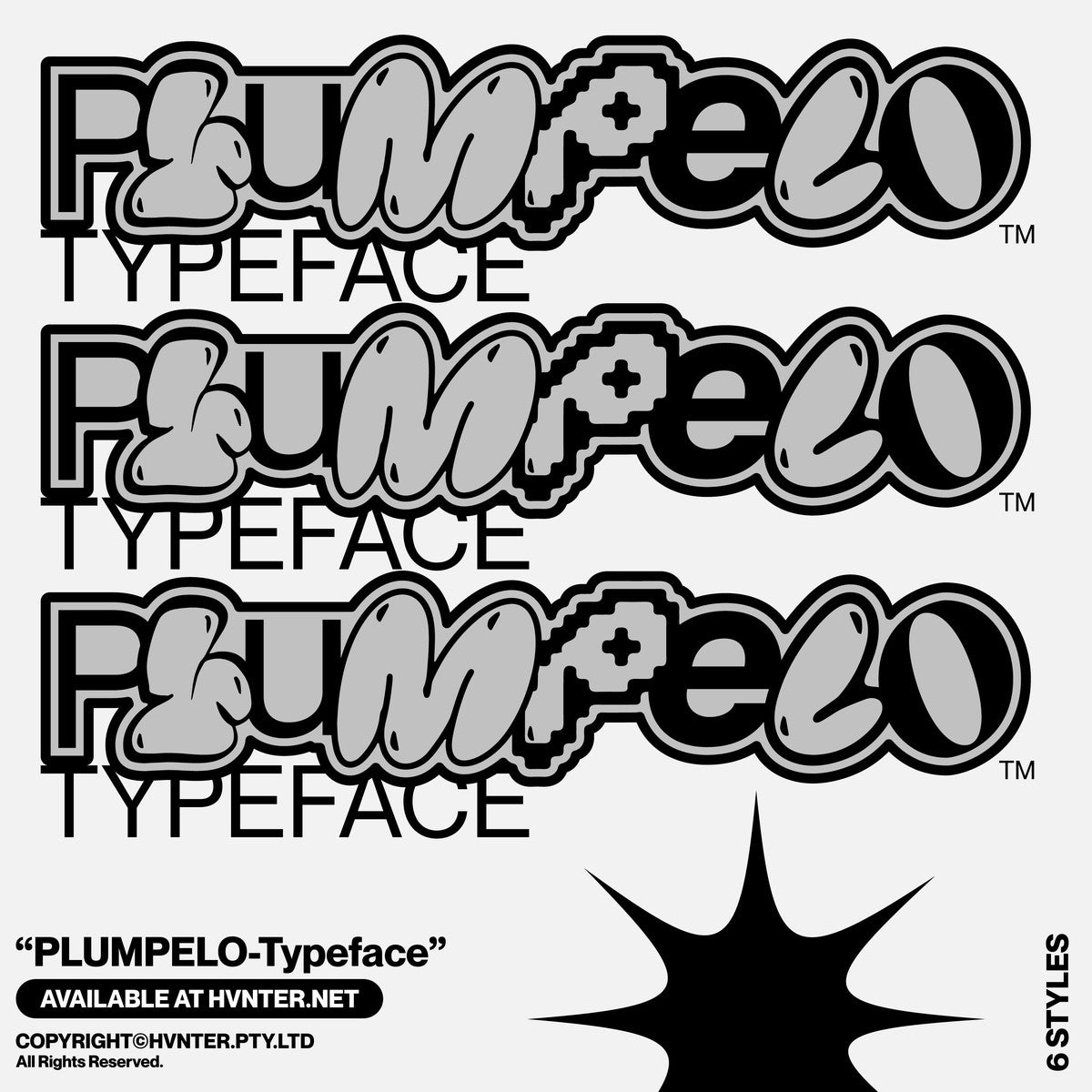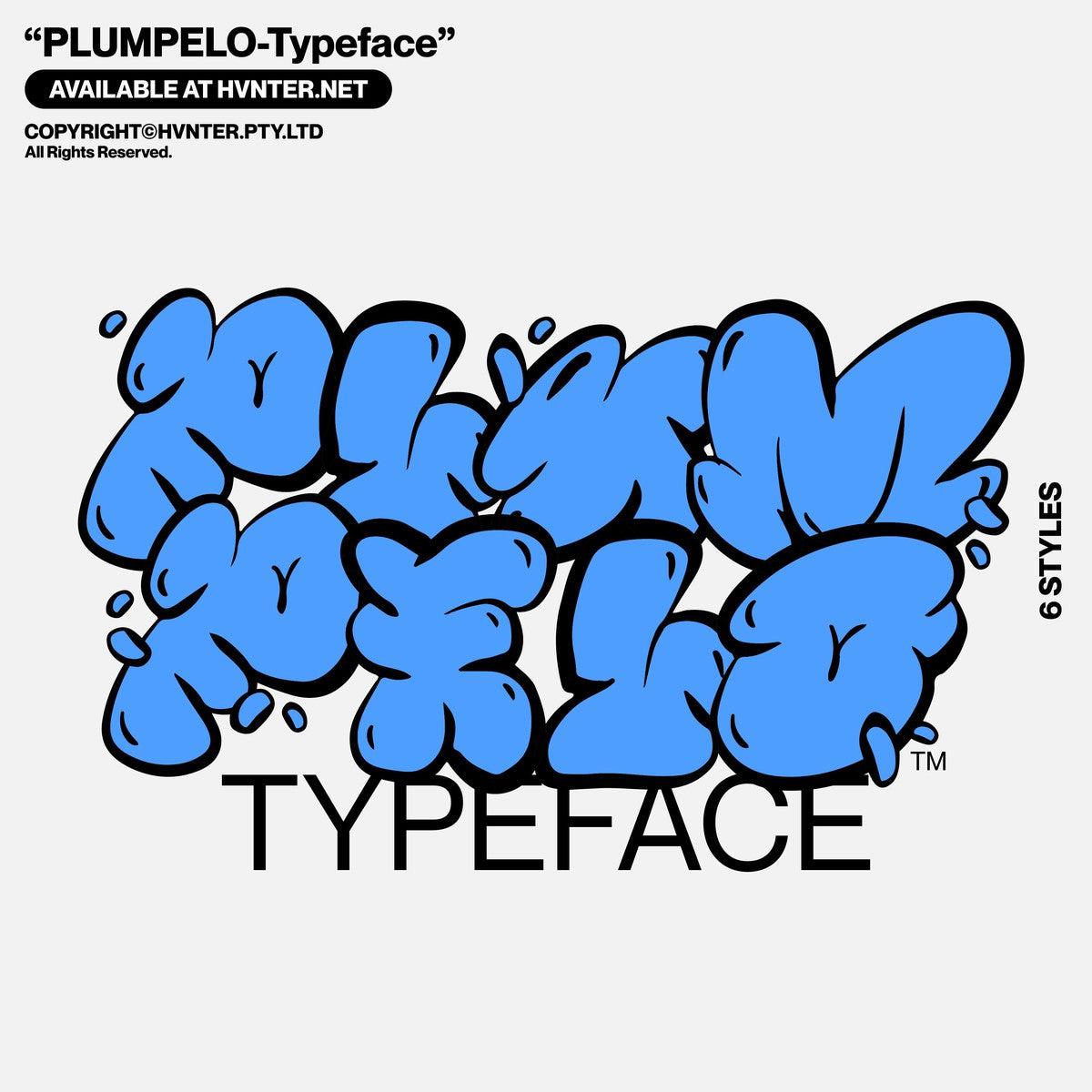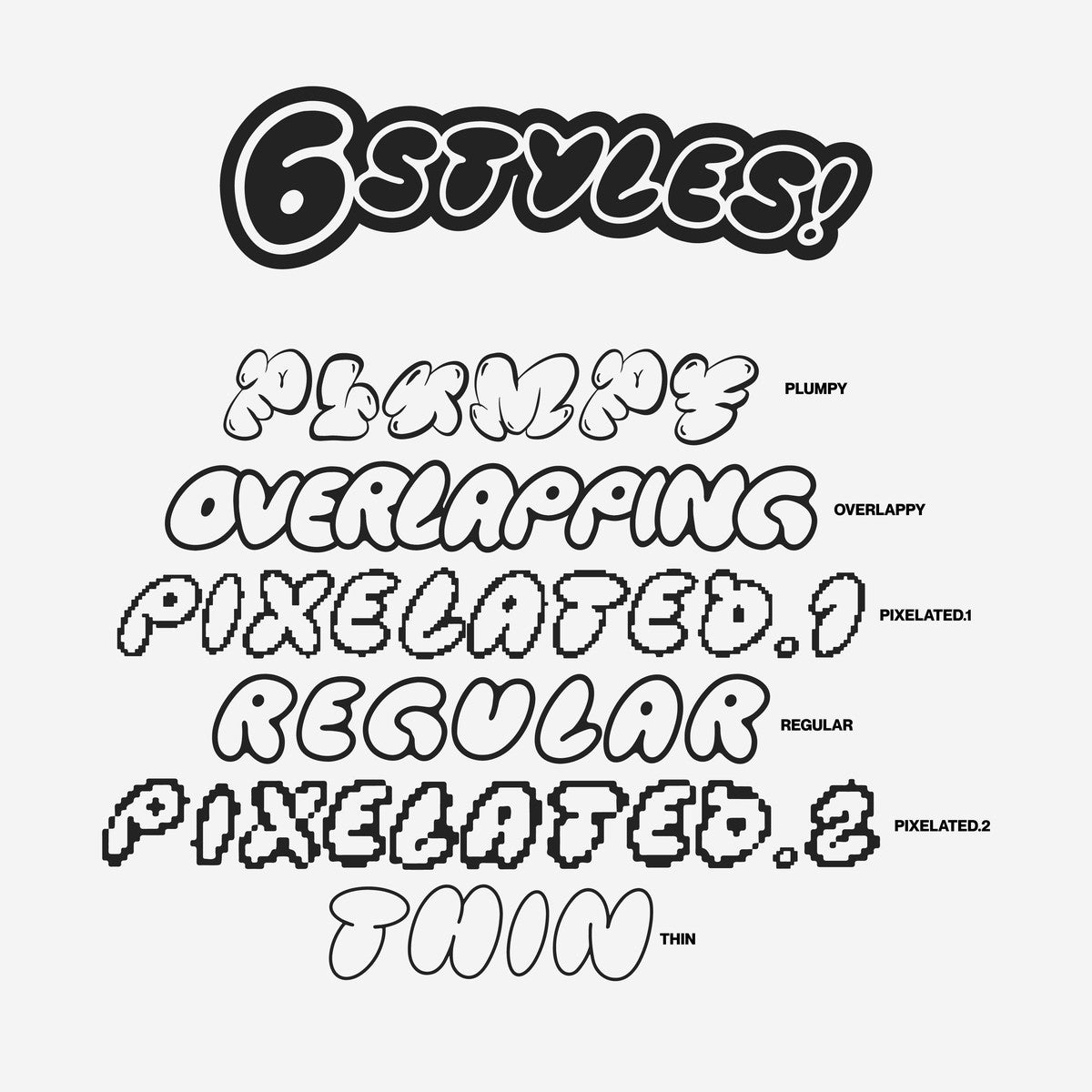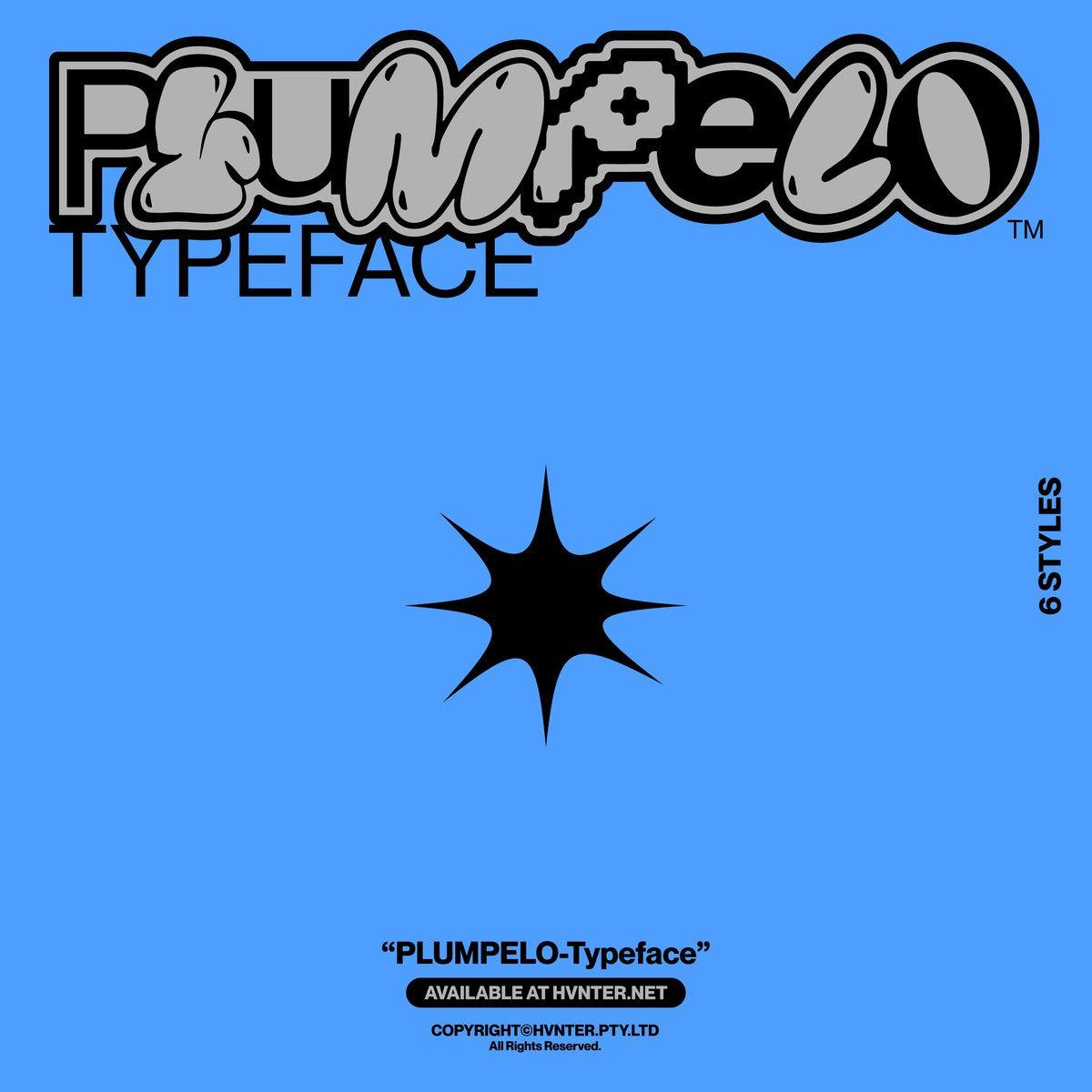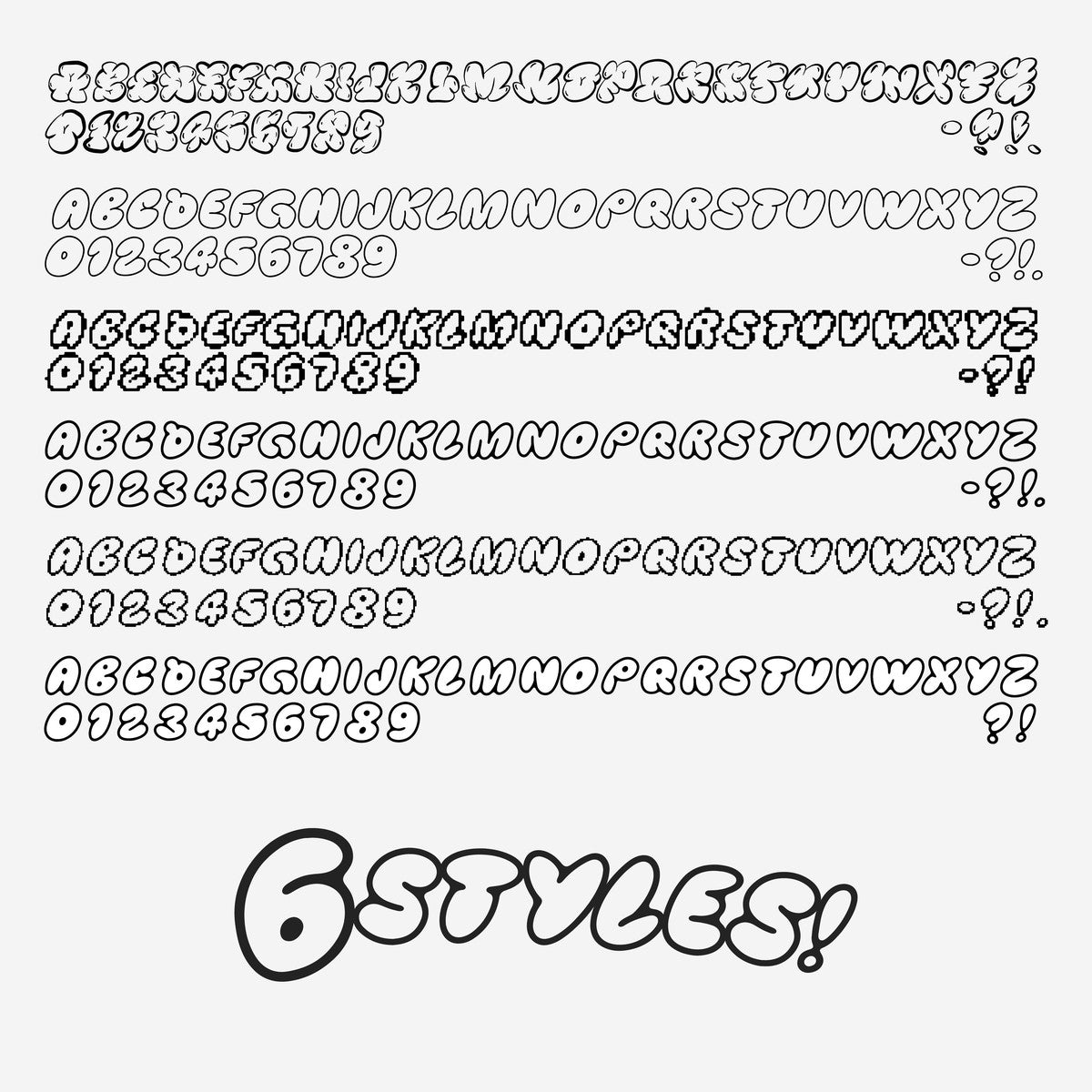
プランペロ書体
The Plumpelo Typeface is a font package that includes six distinct, bubbly style options. The product is presented as .otf font files and is tagged as suitable for assets, grunge, hvnter, streetwear, typeface, and various font styles including y2k, display, cool, pixel, and bubble fonts. Compatibility details are not specified.
Ideal for contemporary graphic design and streetwear branding. Perfect for posters, album covers, and merchandise, ensuring a playful and eye-catching aesthetic that resonates with modern audiences.